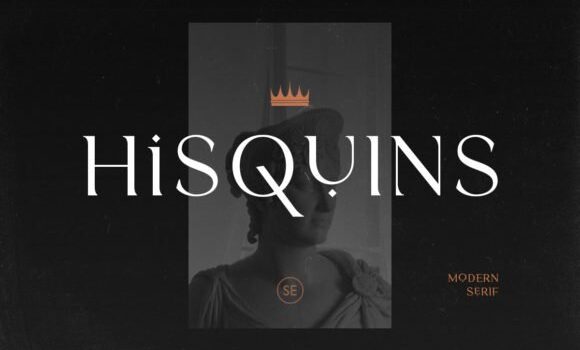
hisquins
Hisquins Font – Free Download Introduction to Hisquins Font Hisquins is a modern, elegant and luxurious serif font. 📸 Preview Gallery 5 images 📌 Product Name Hisquins Font 👤 Author saridezra 📂 Category Explore ⬇️ Download Hisquins Font FREE Free